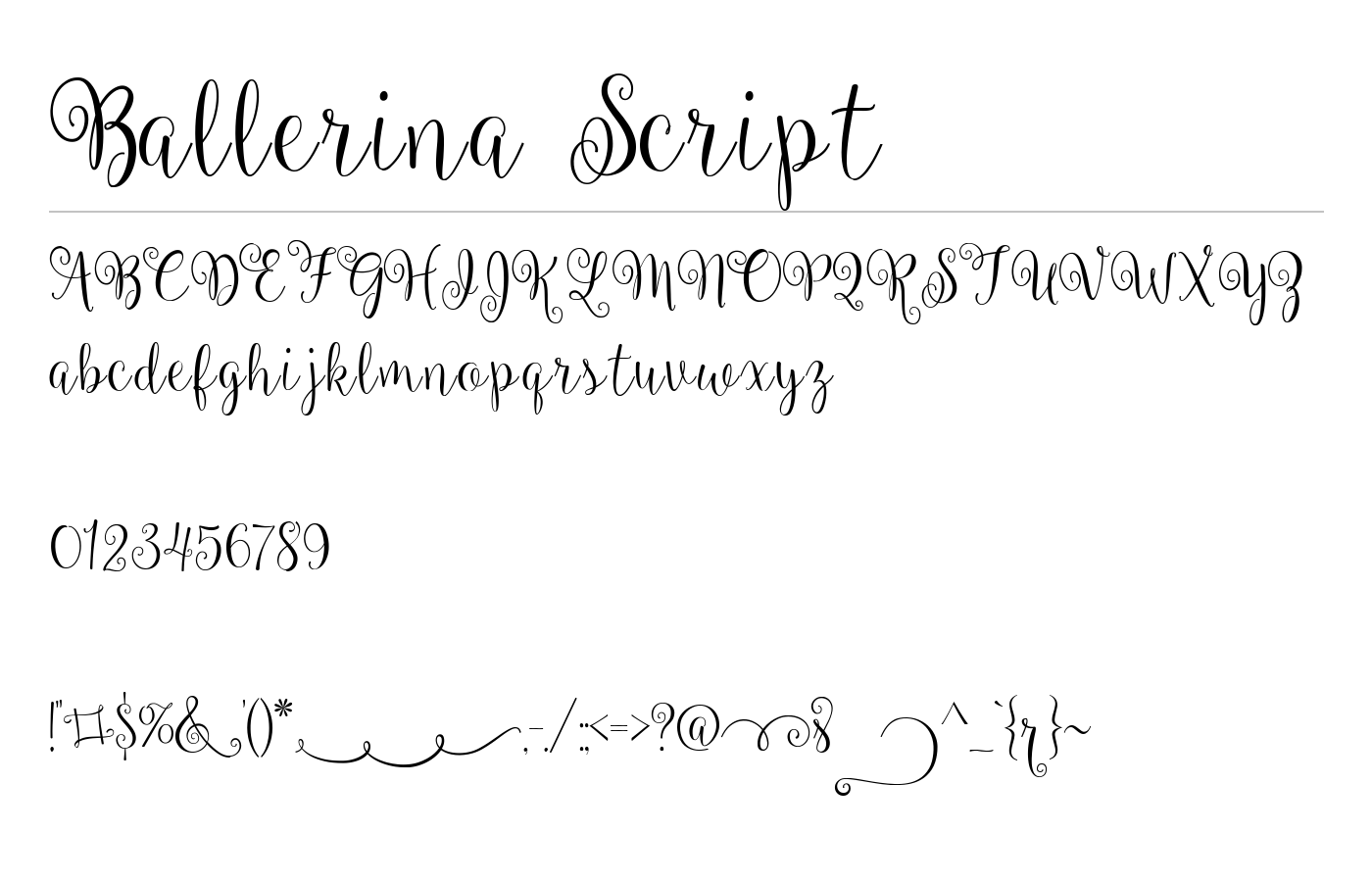
Ballerina Script is an elegant and decorative script font featuring delicate, flowing strokes with intricate swirls, especially in the uppercase letters. Its light weight and airy structure give it a graceful, whimsical feel, perfect for feminine and creative branding, invitations, or packaging that seeks a touch of sophistication and charm. This font works beautifully in logos, headlines, and any design where a refined, artistic flair is desired.
Ballerina Script Font